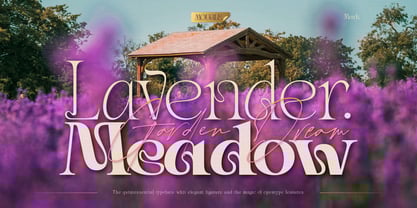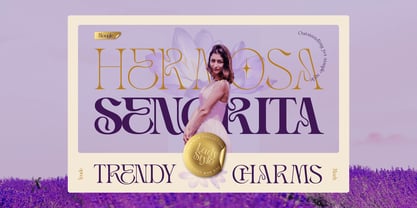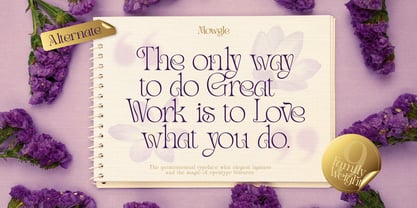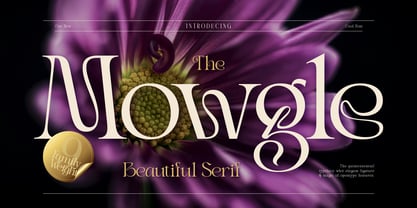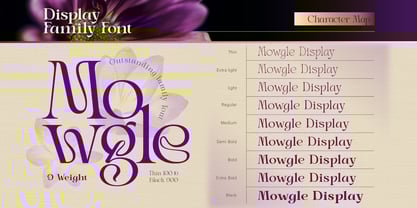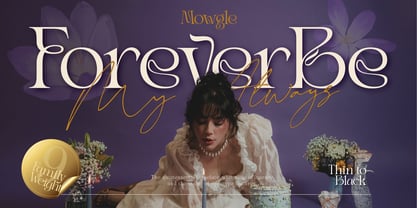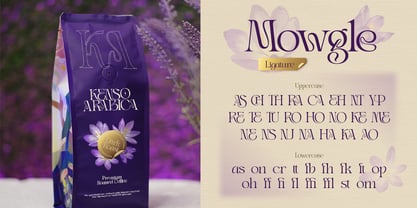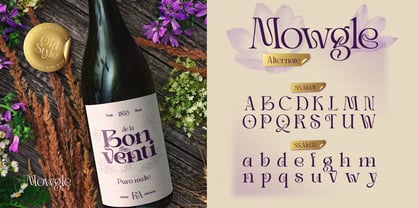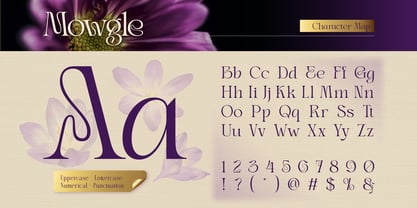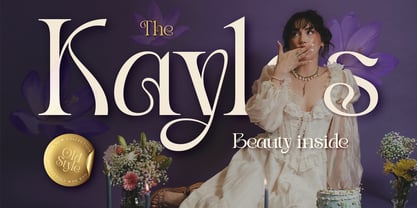
Mowgle
The Mowgle Font Family was designed by Eric Kurniawan and published by Burntilldead. Mowgle contains 9 styles and family package options.
Introducing Mowgle,an elegant serif font that blends timeless elegance with a touch of fantasy. Its smooth, flowing curves bring a graceful and feminine charm, while the bold yet refined letterforms ensure perfect readability. The unique character shapes, adorned with subtle decorative details, make Mowgle a perfect choice for designs that demand both beauty and distinction.
With 9 weight variations from Thin to Black, plus alternates and ligatures, Mowgle offers versatility and creative freedom. Whether for wedding invitations, fantasy book covers, luxury branding, or editorial designs, this font will bring an enchanting and refined look to any project.
Let your creativity flow with Mowgle – a typeface that tells a story of elegance and imagination.
Features:
• A - Z set (Uppercase & Lowercase)
• Number
• Punctuation
• Alternate
• Ligature
• Multilingual